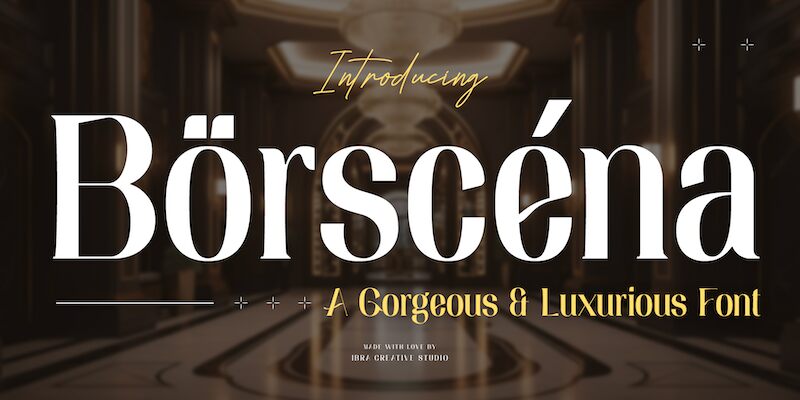
Borscena font is a modern display serif font from Ibra Creative Studio, whose sophisticated appearance will leave the necessary impact. The contrast between strokes and the perfectly balanced curves of this elegant typeface make its refined aesthetic and appeal inevitable and undeniable.
Get your hands on this masterpiece for a branding project, brochure design, packaging, logo design, advertisement, magazine covers or headers, posters or banners and SO much more! It’s really that versatile while being very unique at the same time.